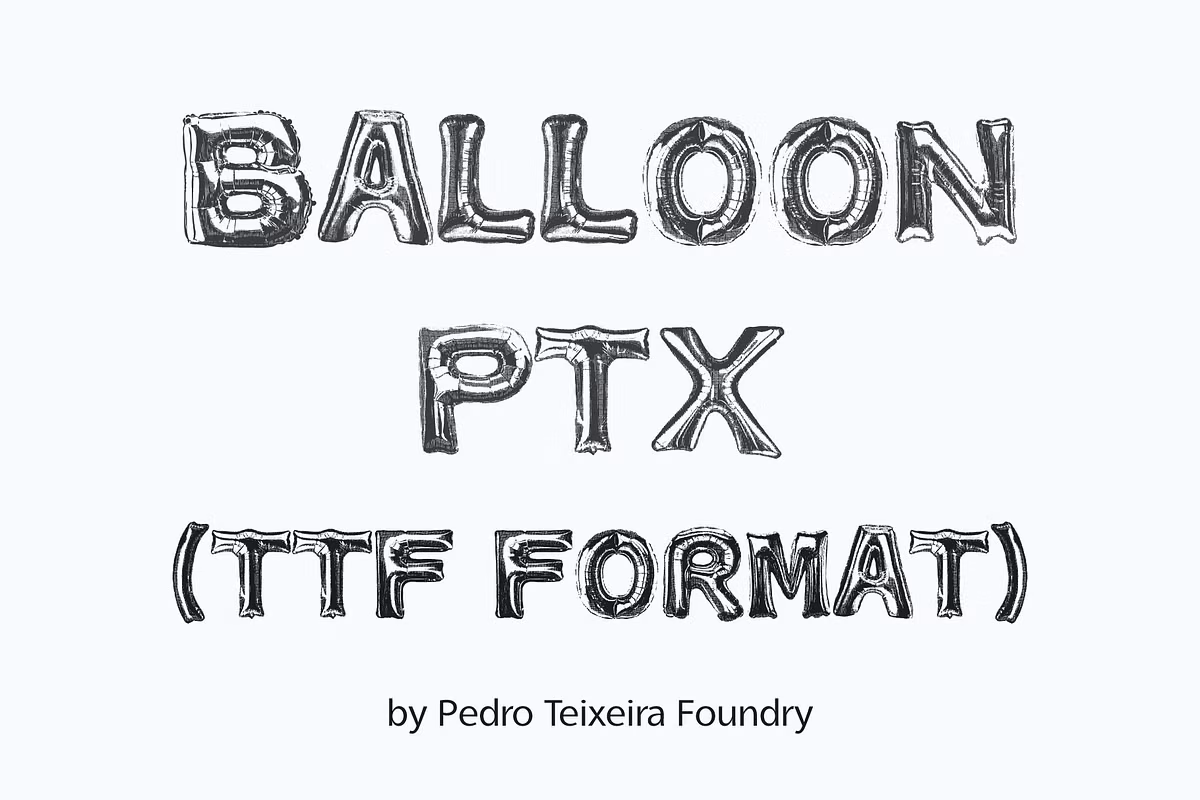
Inflate PTx - Balloon Font Free Download is a fun and playful typeface inspired by balloons, perfect for any project that requires a lighthearted and whimsical touch. Its rounded, bouncy letters and air-filled design make it ideal for children’s projects, party invitations, event posters, logos, and branding that needs to convey joy and celebration.
The bold, inflated style of Inflate PTx ensures that your typography stands out, adding a cheerful and festive vibe to any design.